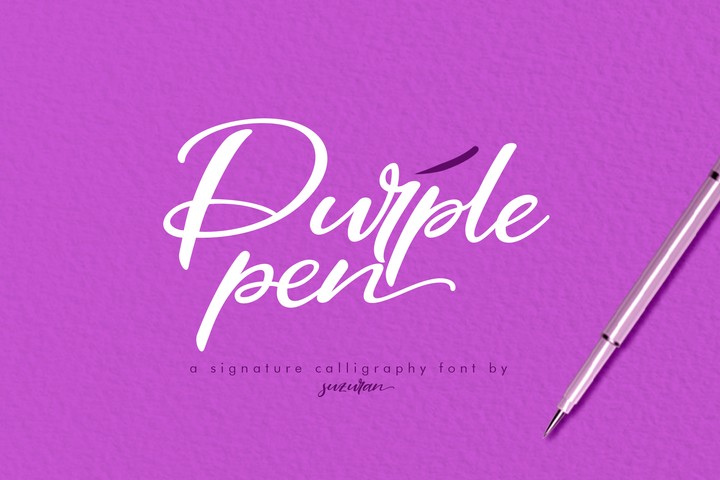
Purple Pen Script Font
Purple Pen Script Font is perfect for luxury beauty brands, feminine business logos, elegant wedding stationery, high-end fashion marketing, sophisticated spa branding, premium cosmetic packaging, royal event invitations, boutique signage, lavender farm products, and upscale lifestyle brands.
Purple Pen Script Font is exciting because it captures the essence of regal elegance and sophisticated femininity, creating a typeface that embodies luxury and refined taste with every graceful stroke. This font brings opulent charm and aristocratic beauty to any project, making it ideal for premium brands that want to convey exclusivity, sophistication, and timeless elegance. Its flowing curves and majestic presence create an atmosphere of luxury that resonates with discerning audiences who appreciate the finer things in life.
Purple Pen Script Font family includes regular, medium, and bold weights, plus ornate flourishes, royal decorative elements, and elegant swash alternates, providing designers with comprehensive tools for creating sophisticated luxury typography and premium brand experiences.
This exquisite script typeface combines royal calligraphy traditions with contemporary luxury aesthetics, making Purple Pen Script Font Free Download a perfect choice for high-end projects celebrating elegance and refinement. The font's meticulously crafted letterforms feature authentic pen flow patterns and aristocratic styling that evokes the grandeur of royal correspondence and luxury craftsmanship.
Whether you're designing premium beauty campaigns, luxury fashion branding, or exclusive event materials, Purple Pen Script Font delivers unmatched sophistication and regal appeal. The font performs beautifully across both digital luxury platforms and premium print applications where elegance and exclusivity are paramount values.
Luxury brand professionals choose Purple Pen Script Font for its ability to instantly communicate premium quality and sophisticated taste while creating emotional connections with affluent target audiences. The font's royal character makes it particularly effective for beauty brands, luxury spas, and exclusive boutiques.
Each letterform reflects the refined artistry of royal scribes, featuring elegant pressure variations and graceful connections that create typography worthy of the most prestigious luxury applications and royal occasions.